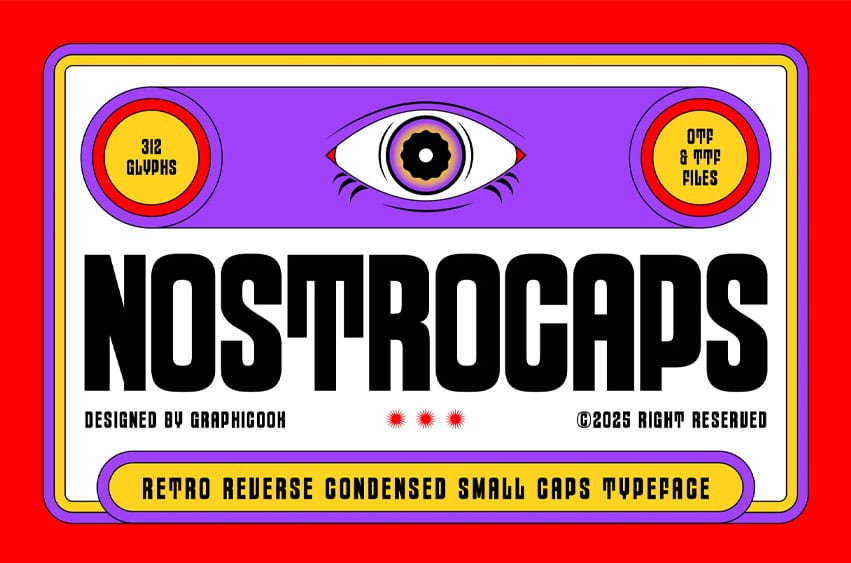
Nostrocaps Font is an experimental condensed font that delivers a clean, modern, and powerful appearance. Ideal for headlines, music posters, and logos.
Nostrocaps is perfect for headlines, logotypes, magazines, packaging, quotes, movies, games, cover albums, book covers, and flyers, It’s a perfect solution for creating eye-catching designs that stand out in any context.